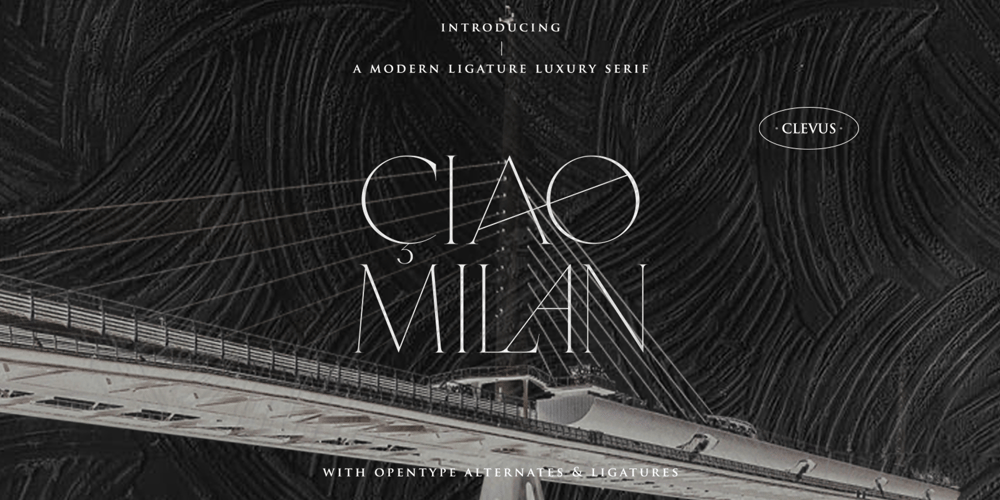
Ciao Milan Modern Ligature Font Family was designed by Alfinu Zafir and published by Clevus. Ciao Milan Modern Ligature contains 1 styles and family package options. Proudly present CiaoMilan Typeface, created by ClevUs, A serif modern ligature and alternate classic typeface that has own unique style & modern look. This typeface is perfect for an elegant & luxury logo, book or movie title design, fashion brand, magazine, clothes, lettering, quotes, and so much more.Features :Uppercase and Lowercase Numerals Punctuations (OpenType Standard) Accents (Multilingual Characters) Ligatures and Alternative Style Stylistic Set Works on PC and Mac Simple installationsSOFTWARE REQUIREMENTS :Fonts and alternate : No special software required they may be used in any basic program /website apps that allows standard fonts That’s it folks! You can go ahead and get cracking :)Follow My Shop For Upcoming Updates Including Additional Glyphs And Language Support. And Please Message Me If You Want Your Language Included or If There Are Any Features or Glyph Requests, Feel Free to Send me A Message. Have a Good Day !